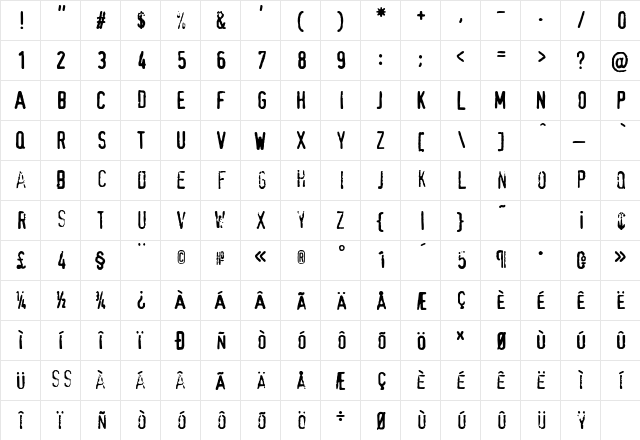
Hootie! Hootie!
Design Context for Hootie! Typeface
Hootie! offers clean, dependable letterforms without strong stylistic allegiance, making it a practical choice for designers who need flexibility.
Pro Tip: Pair Hootie! with a font of contrasting weight or personality to build a more expressive typographic hierarchy.